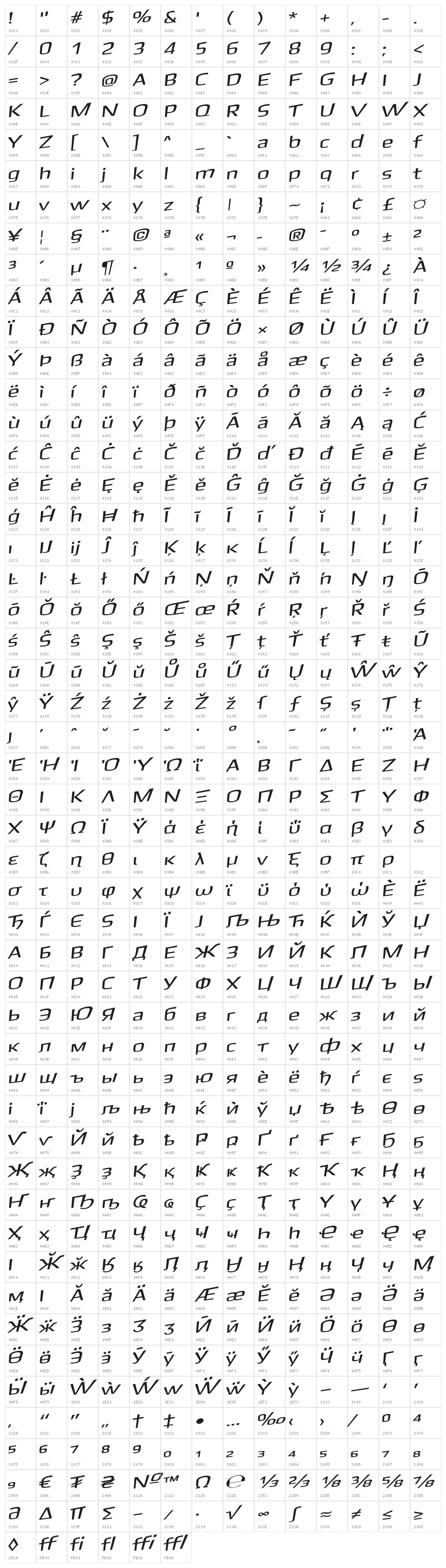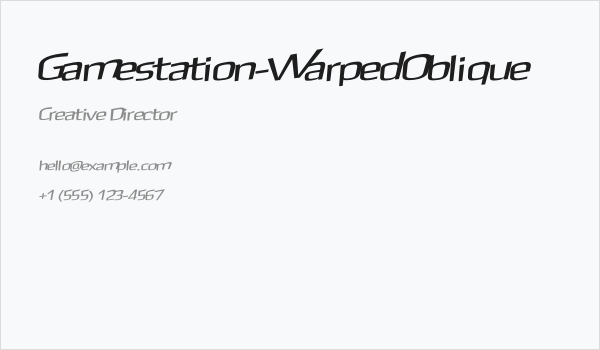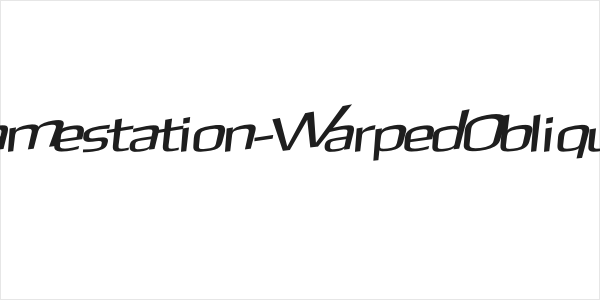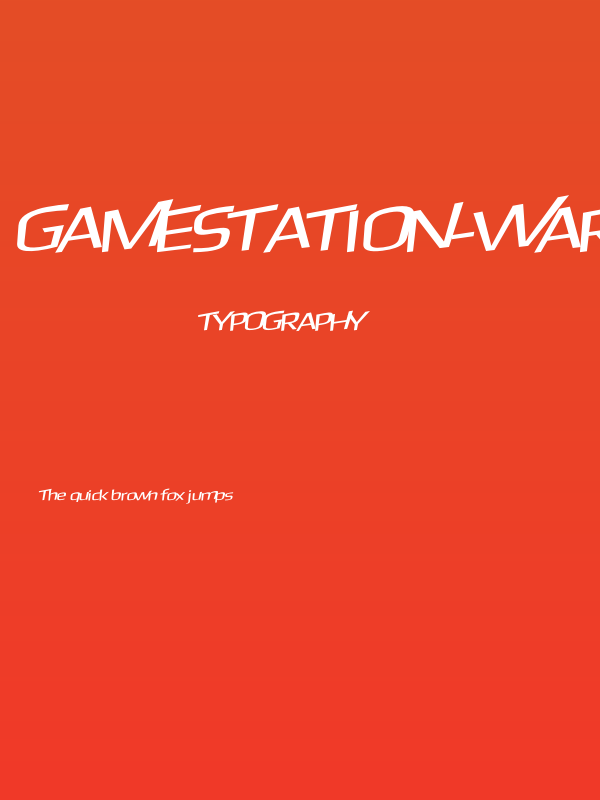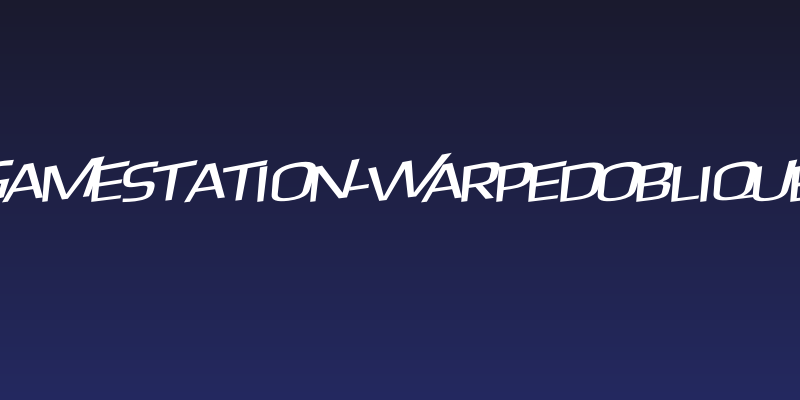
Gamestation-WarpedOblique Font
Gamestation-WarpedOblique Description
This font exhibits a dynamic and futuristic style with its oblique orientation and sharp, angular lines. The characters are slightly condensed, giving a sense of speed and motion. The uppercase and lowercase letters maintain a consistent slant, enhancing the italicized effect. The numerals and special characters follow the same design principles, ensuring uniformity across the typeface. The strokes are moderately thick, providing a medium contrast that balances readability with style. This font's modern and edgy appearance makes it suitable for projects that require a bold and contemporary look.